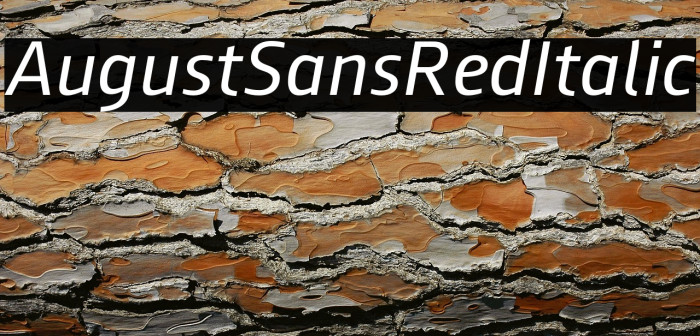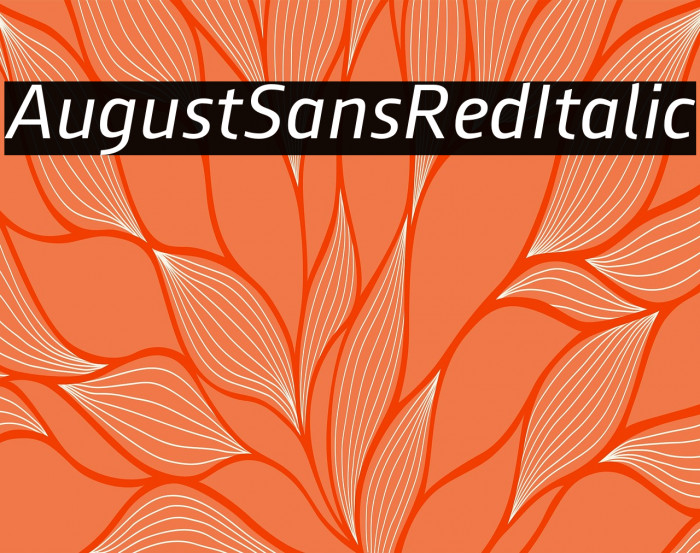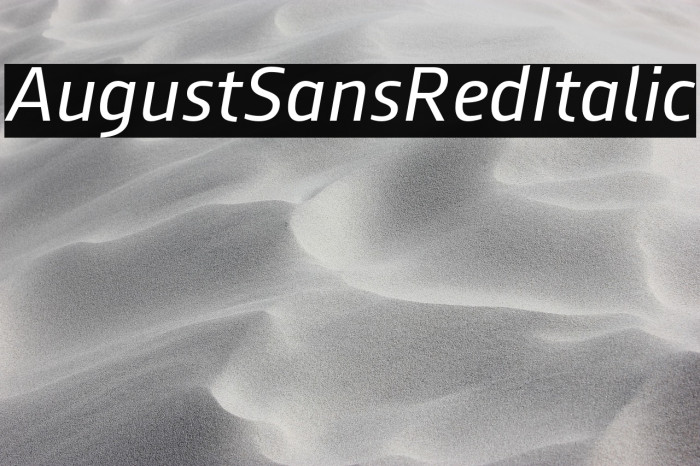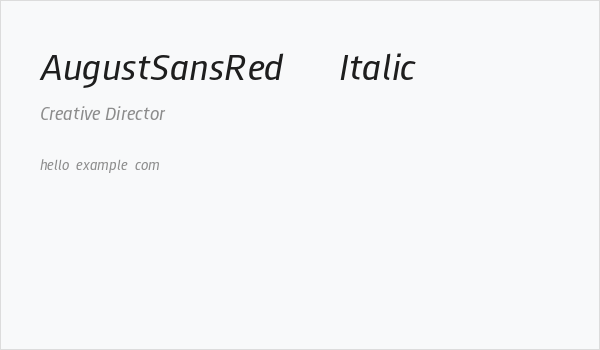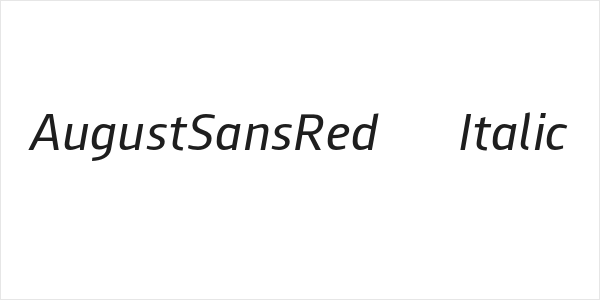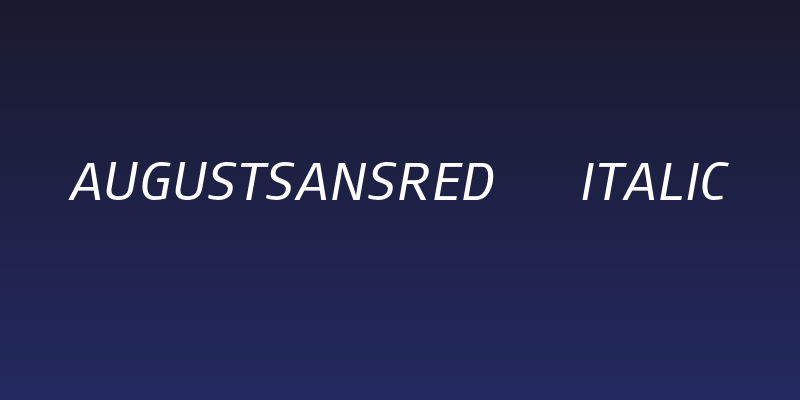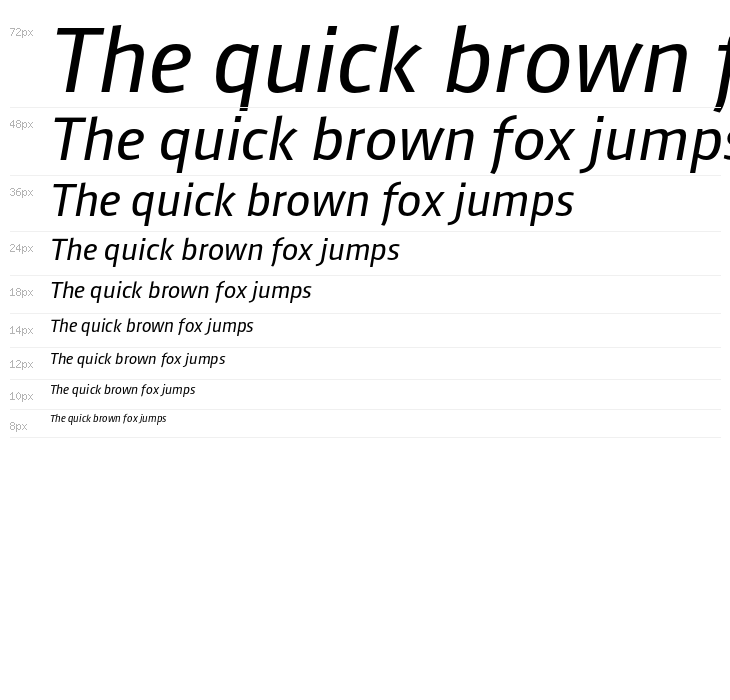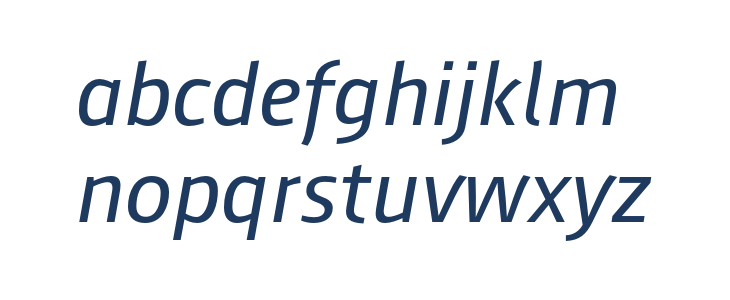
AugustSansRed-56Italic Description
This font features a sleek and modern sans-serif design with a slight italic slant, giving it a dynamic and forward-moving appearance. The characters are clean and well-defined, with consistent stroke widths that contribute to a harmonious and balanced look. The uppercase and lowercase letters maintain a uniform style, ensuring readability and versatility across different applications. The numerals are clear and straightforward, matching the overall aesthetic of the font. Special characters are included, providing additional functionality for various design needs.
| Proposed Projects | Ideal for branding, advertising, web design, and editorial layouts where a contemporary and professional look is desired. |